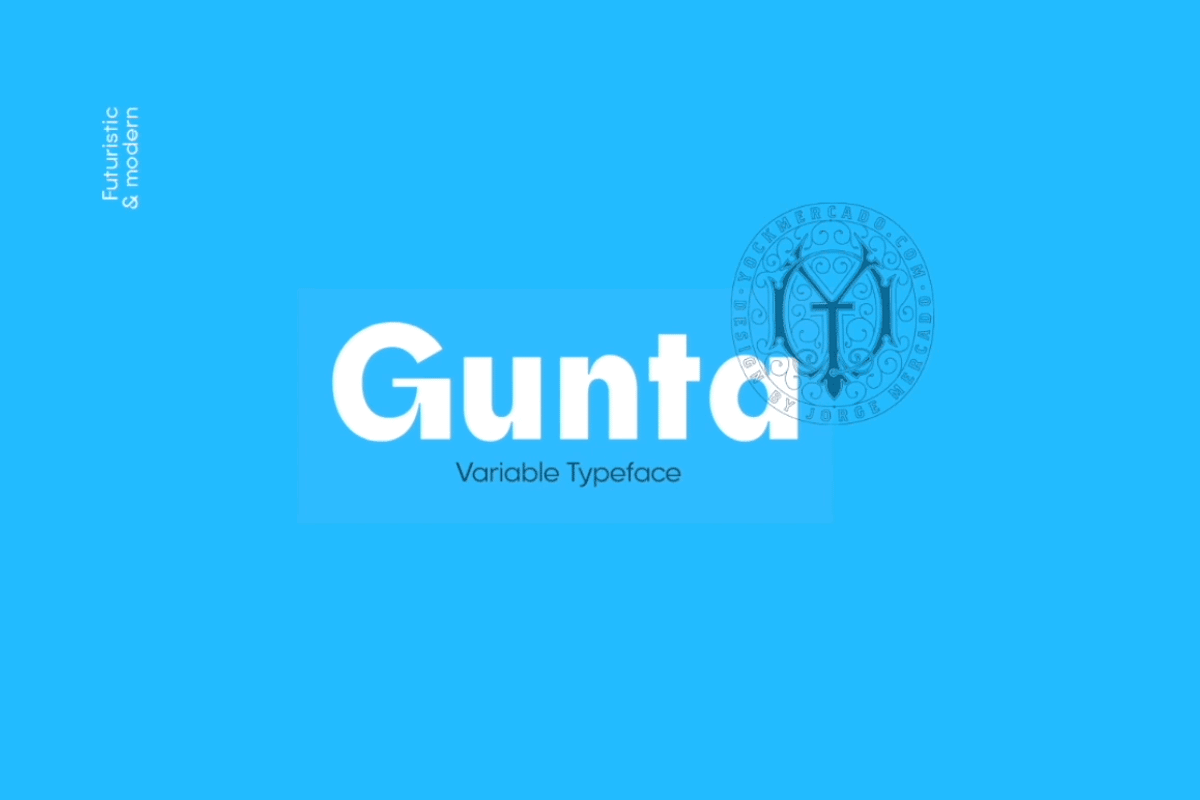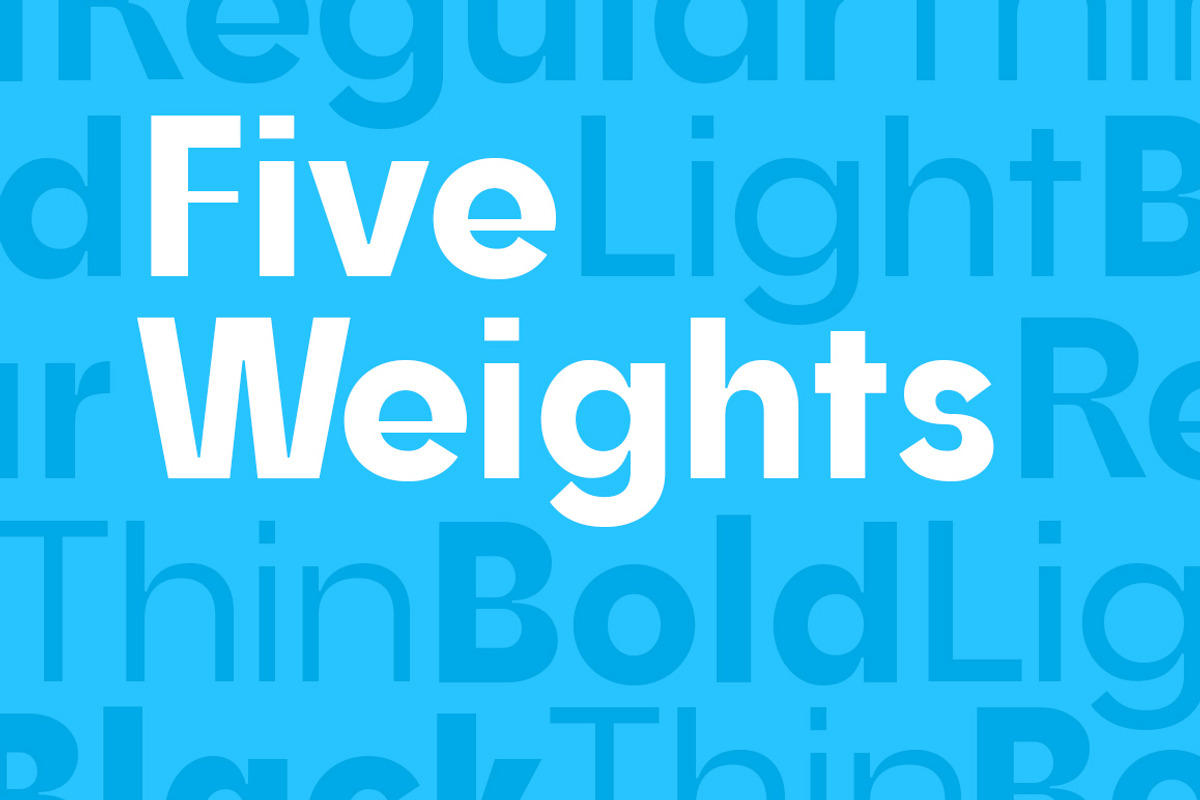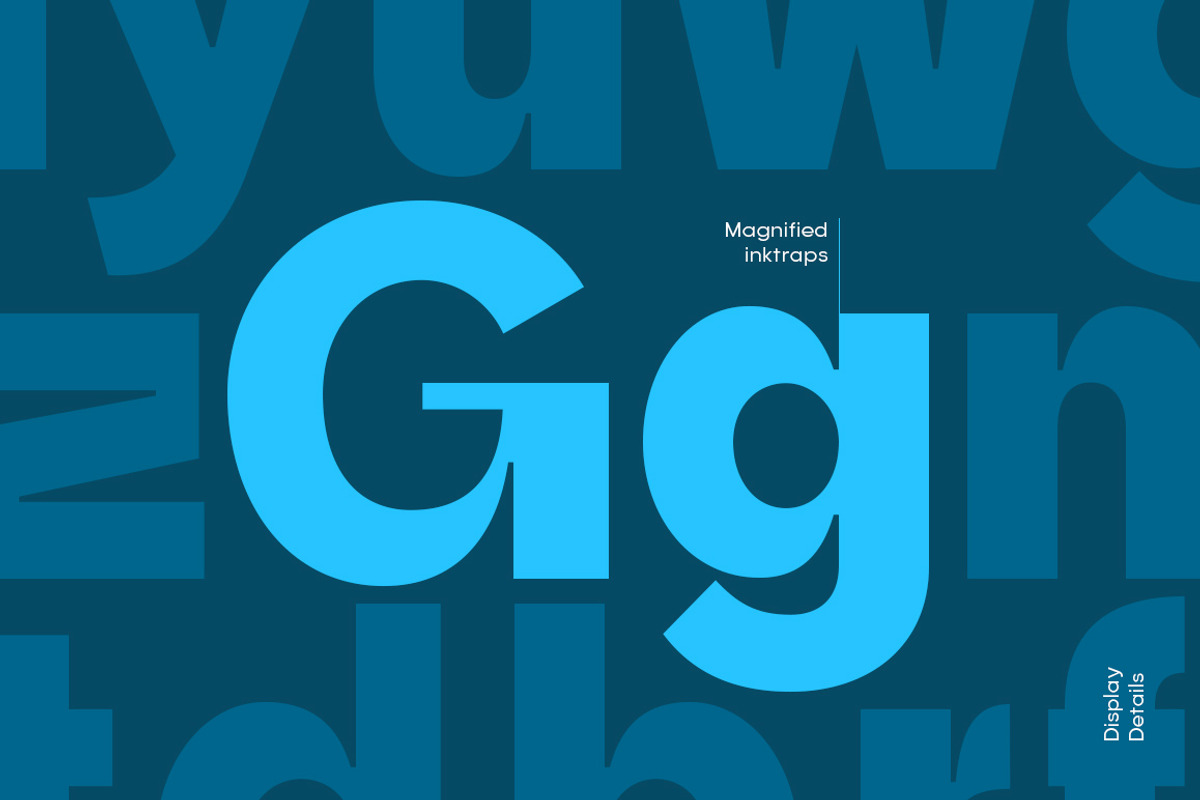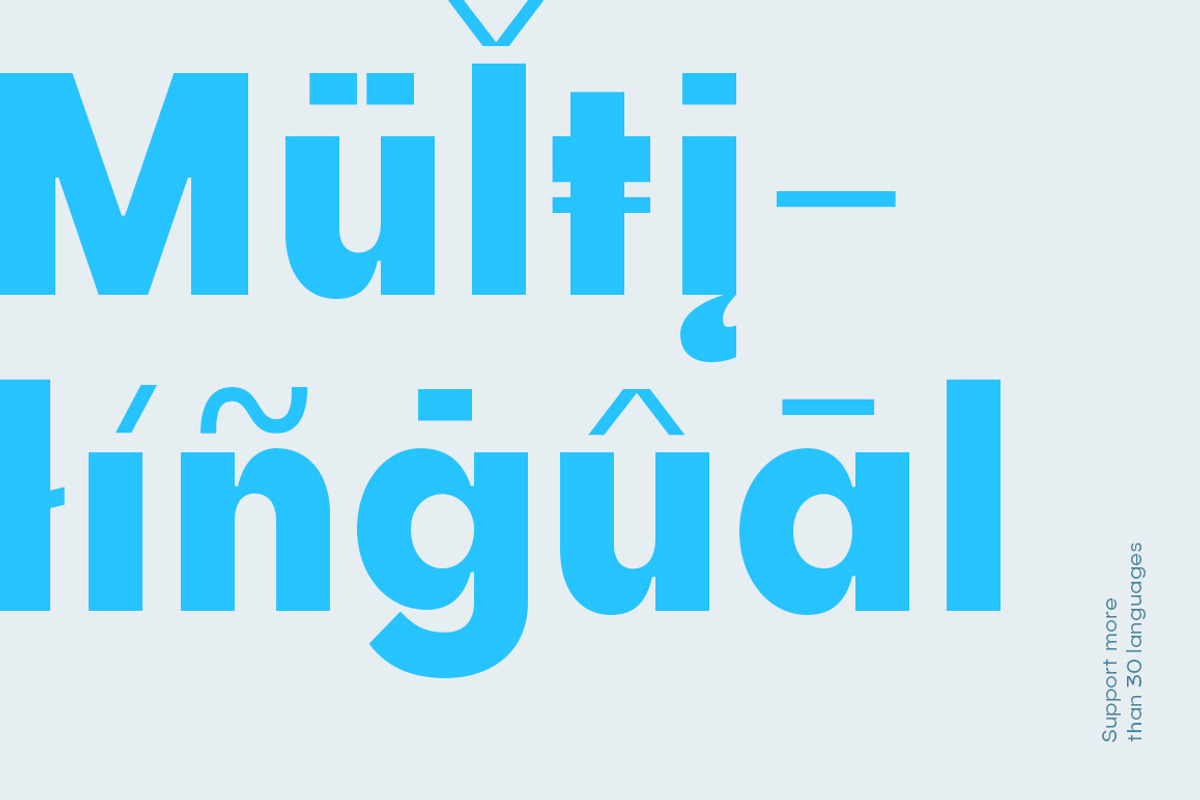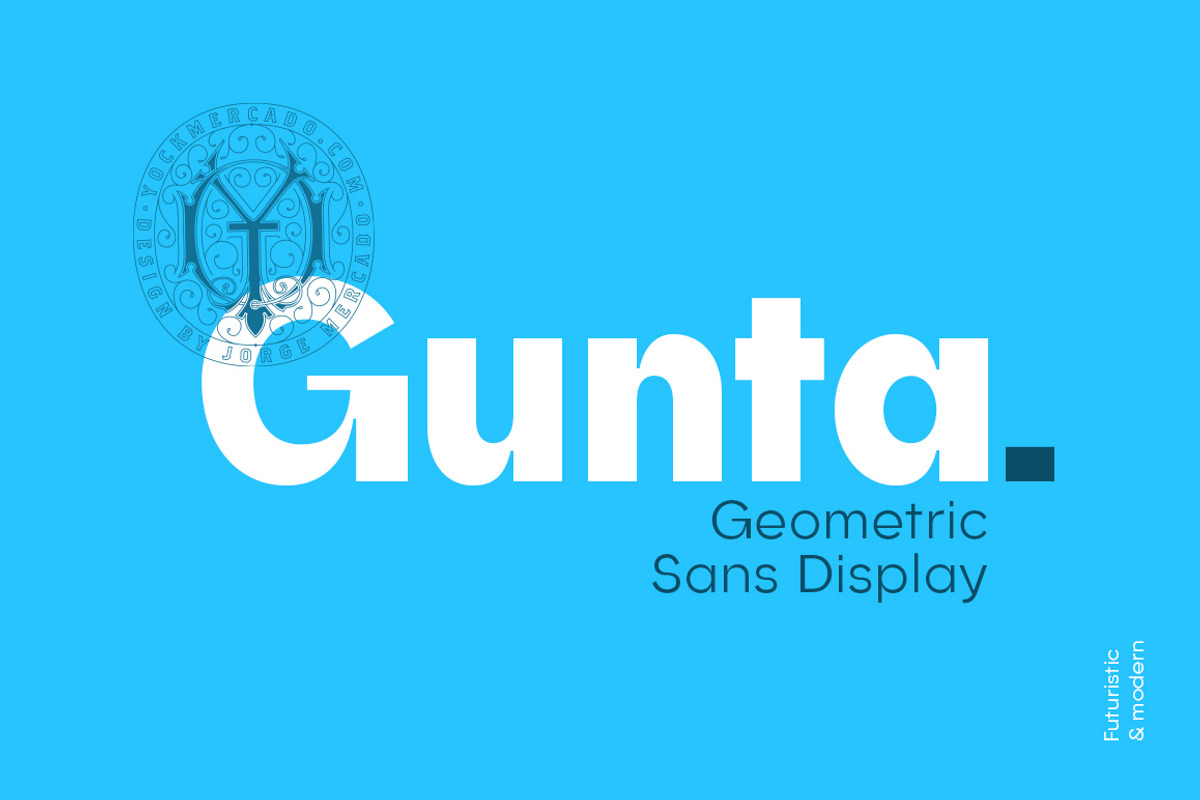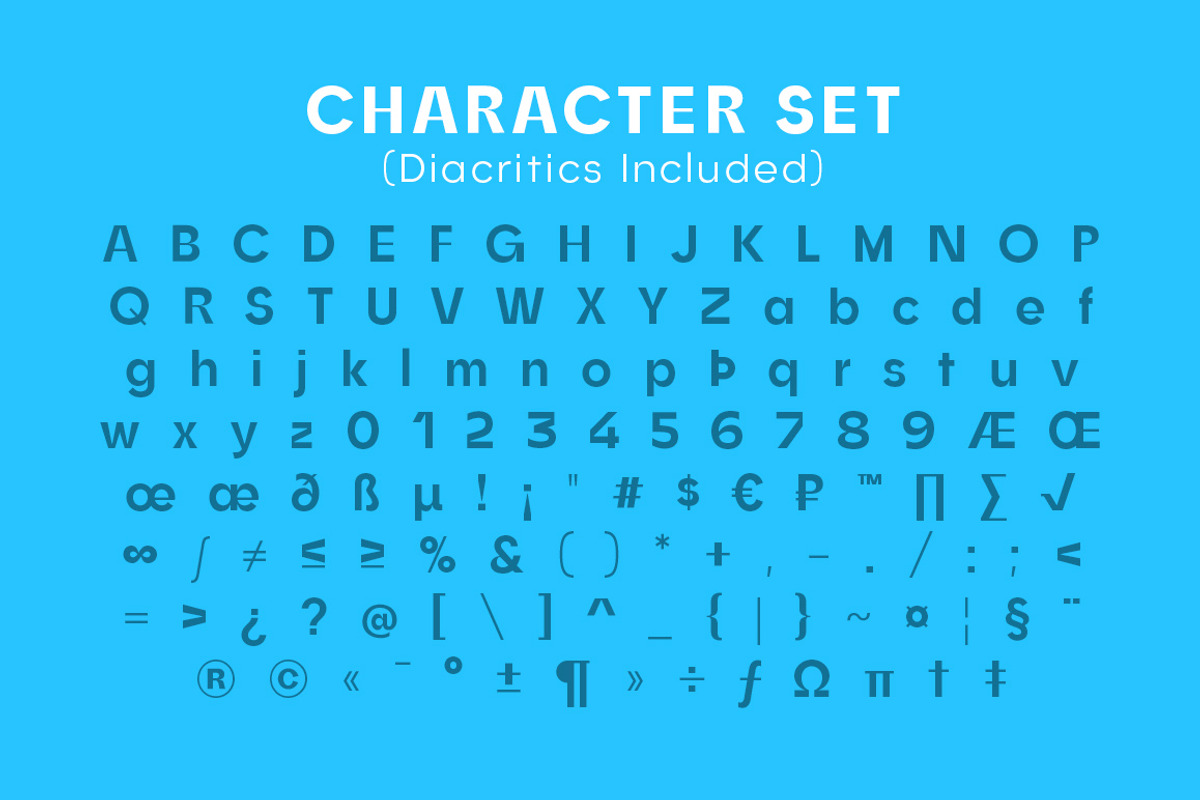
Gunta Variable Font
Gunta is a typeface inspired in geometric sans serif with display headline characteristics, we create this typography in 5 different weights. When you buy, you got this in OTF and WOFF formats, in addition to this we create a variable typeface font file.
- Gunta Thin
- Gunta Light
- Gunta Regular
- Gunta Bold
- Gunta Black
Why Gunta Variable Font is worth a look
Gunta Variable Font by YockMercado fits naturally into Branding, posters, packaging, typography.